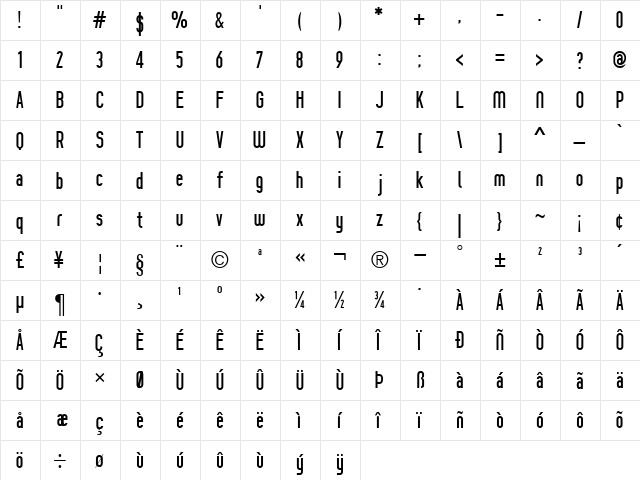
Prozak Regular
| Foundry | studio Kmzero |
| Designer | Francesco Canovaro |
Design Context for Prozak Typeface
Prozak takes a measured approach to typography — its balanced proportions and neutral character make it a reliable workhorse for both digital and print work.